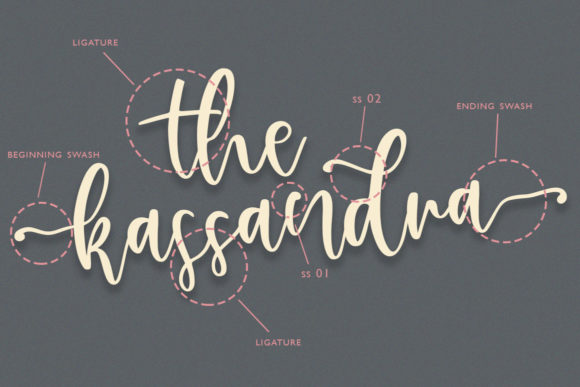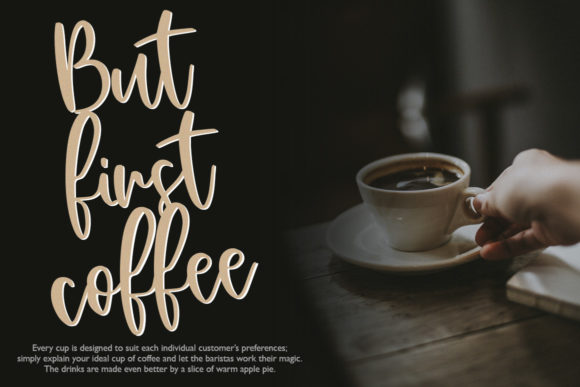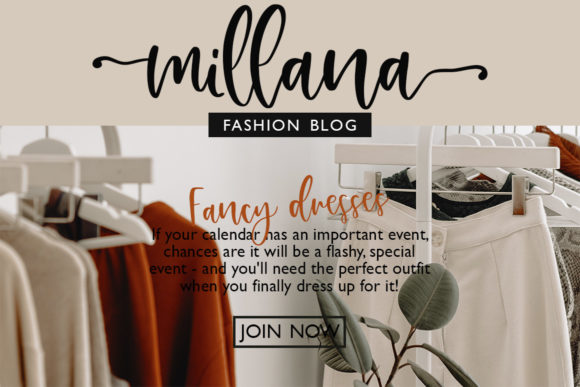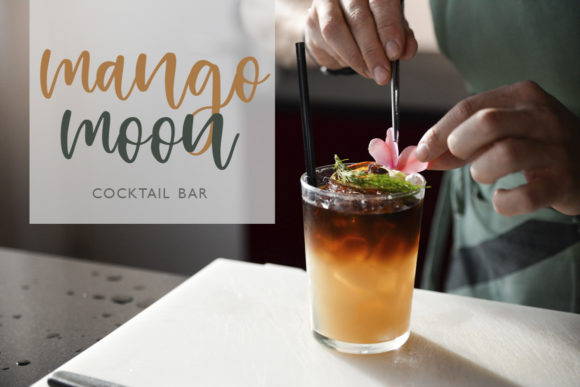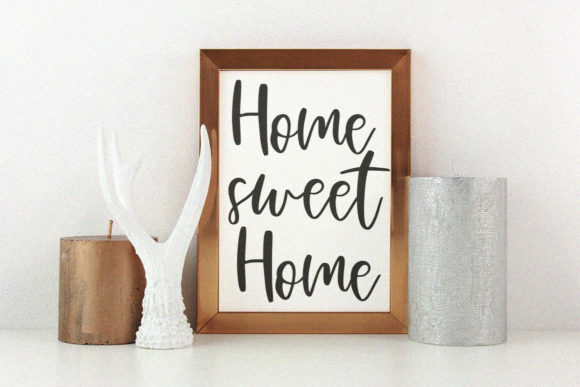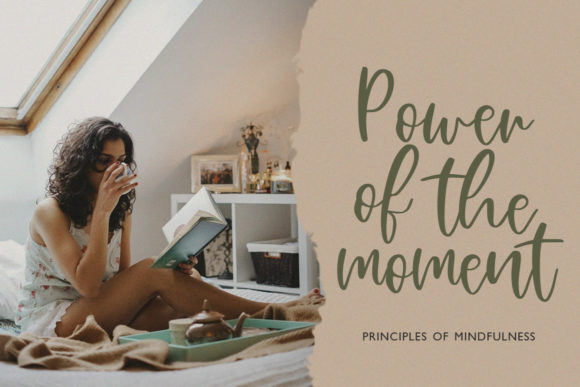
Introduction to Kasandra Font
Kasandra is a lovely and delicate script font that exudes elegance and class.
This font was particularly crafted for those who need a beautiful and refreshing look to their designs .
Key Features of Kasandra Font